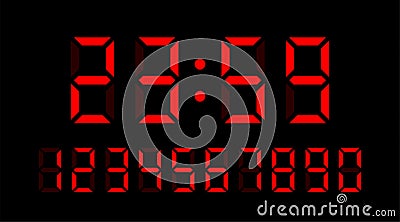
Vector Set Of Electronic Digits Numbers Font From A Clock And A Countdown Timer. Red Watch And Calculator Display Symbols
Vector set of electronic digits numbers font from a clock and a countdown timer. Red watch and calculator display symbols #253142572
Vector set of electronic digits numbers font from a clock and a countdown timer. Red watch and calculator display symbols.